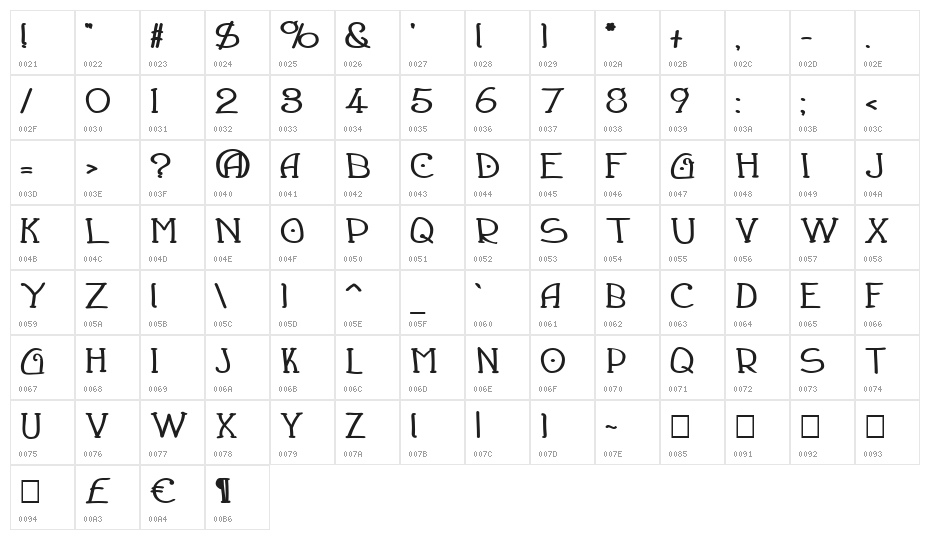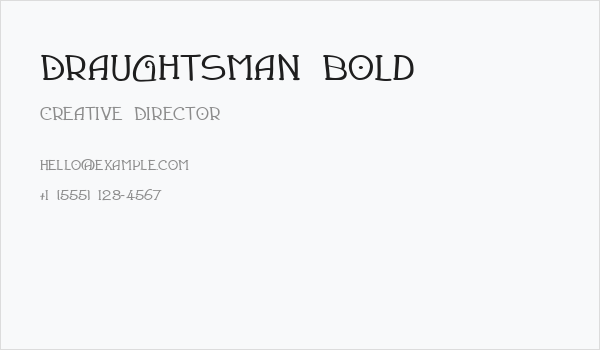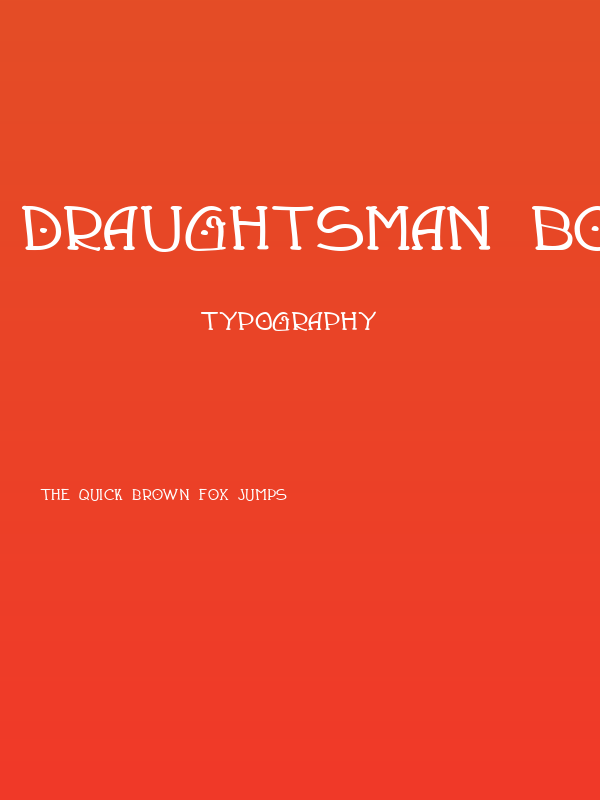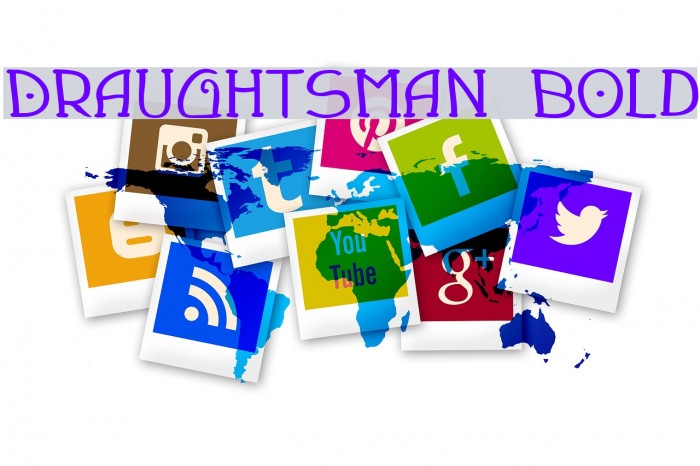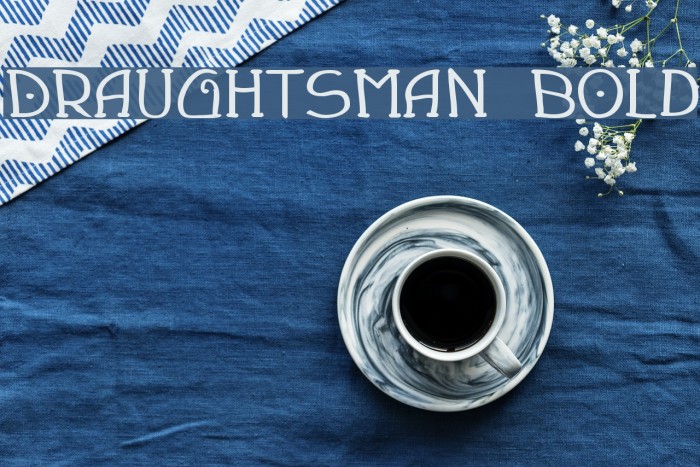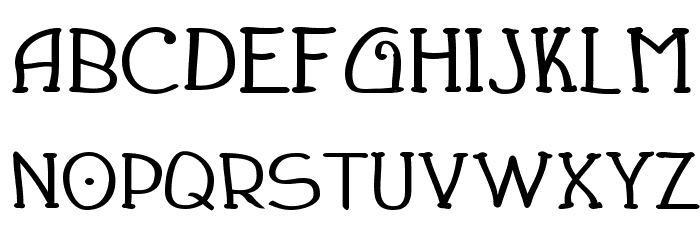
Draughtsman Bold Font
Draughtsman Bold Description
This font exhibits a bold and playful style with a unique character. Each letter features a slightly whimsical design, with rounded edges and a hand-drawn feel. The uppercase letters are consistent in height, while the lowercase letters maintain a similar playful aesthetic. Numbers are bold and clear, making them easily readable. Special characters are creatively designed, adding to the overall charm of the font. The font's boldness makes it stand out, while its playful curves and lines give it a friendly and approachable appearance.
| Overall Style | Playful, Whimsical |
| Proposed Projects | Ideal for children's books, playful branding, posters, and creative projects. |